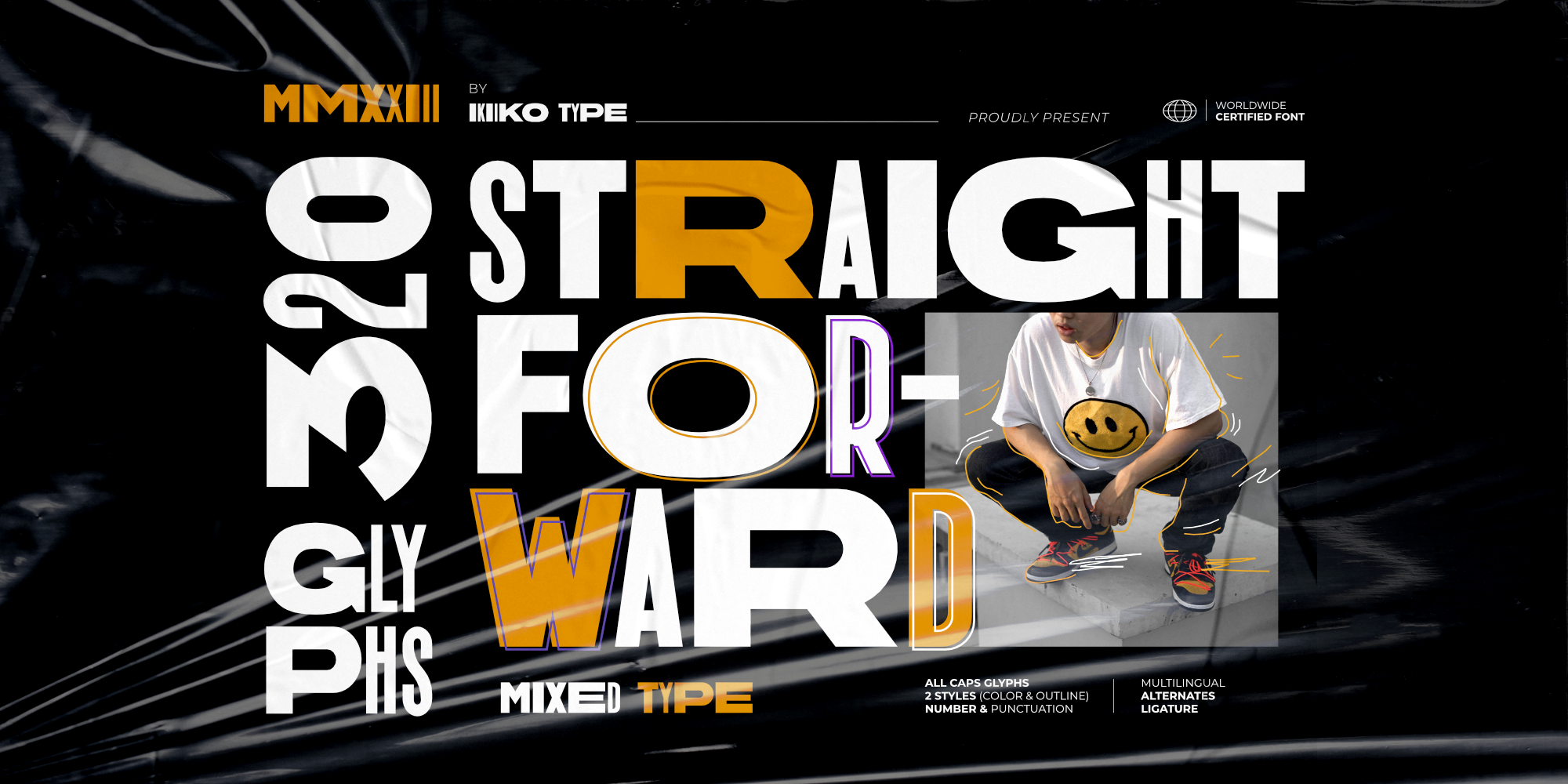
Straight Forward Font is perfect for modern branding projects, clean corporate presentations, minimalist website headers, professional business cards, contemporary logo designs, magazine layouts, social media graphics, and sleek packaging designs. Its versatility makes it ideal for both digital and print applications.
What makes Straight Forward Font exciting is its perfect balance between readability and contemporary style. The clean lines and geometric precision create a sophisticated appearance that commands attention while maintaining excellent legibility across all sizes. This typeface embodies modern design principles with its streamlined character forms and optimal spacing.
Straight Forward Font family includes Regular, Bold, Light, Medium, and Italic variations, providing designers with comprehensive typographic flexibility for any creative project.
Transform your design projects with the contemporary elegance of Straight Forward Font Free Download. This exceptional typeface delivers professional results whether you're creating corporate identities, editorial layouts, or digital interfaces. The font's clean architecture and modern appeal make it an essential addition to any designer's toolkit. Its geometric foundation ensures consistent performance across various media formats while maintaining visual impact. Straight Forward Font represents the perfect fusion of functionality and aesthetic appeal, making it suitable for brands seeking a fresh, professional image. The carefully crafted letterforms provide excellent readability in both large display sizes and smaller text applications, ensuring your message is always clear and compelling.